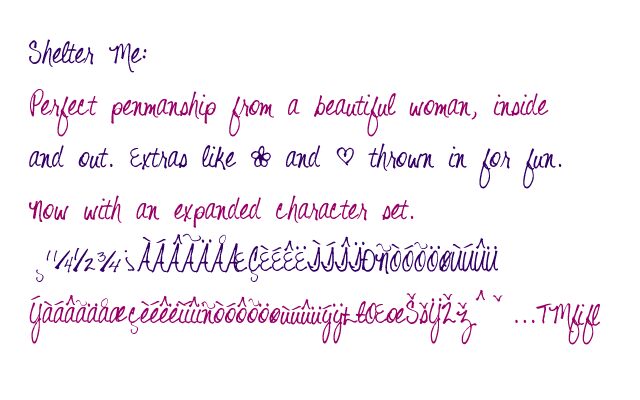
Shelter Me by Kimberly Geswein is a free handwritten font shaped by fast, uneven pen strokes, generous loops, and strong shifts between thin and broad lines. Its uneven joins and changing stroke widths keep the lettering lively.
It can give boutique branding and cafe packaging the directness of a handwritten note, yet its broad sweeps and upright, bouncing forms also suit wedding invitations and music posters. In editorial design, it offers an informal human voice and can make pull quotes or first-person essays resemble notes drawn directly on the page.
Shelter Me